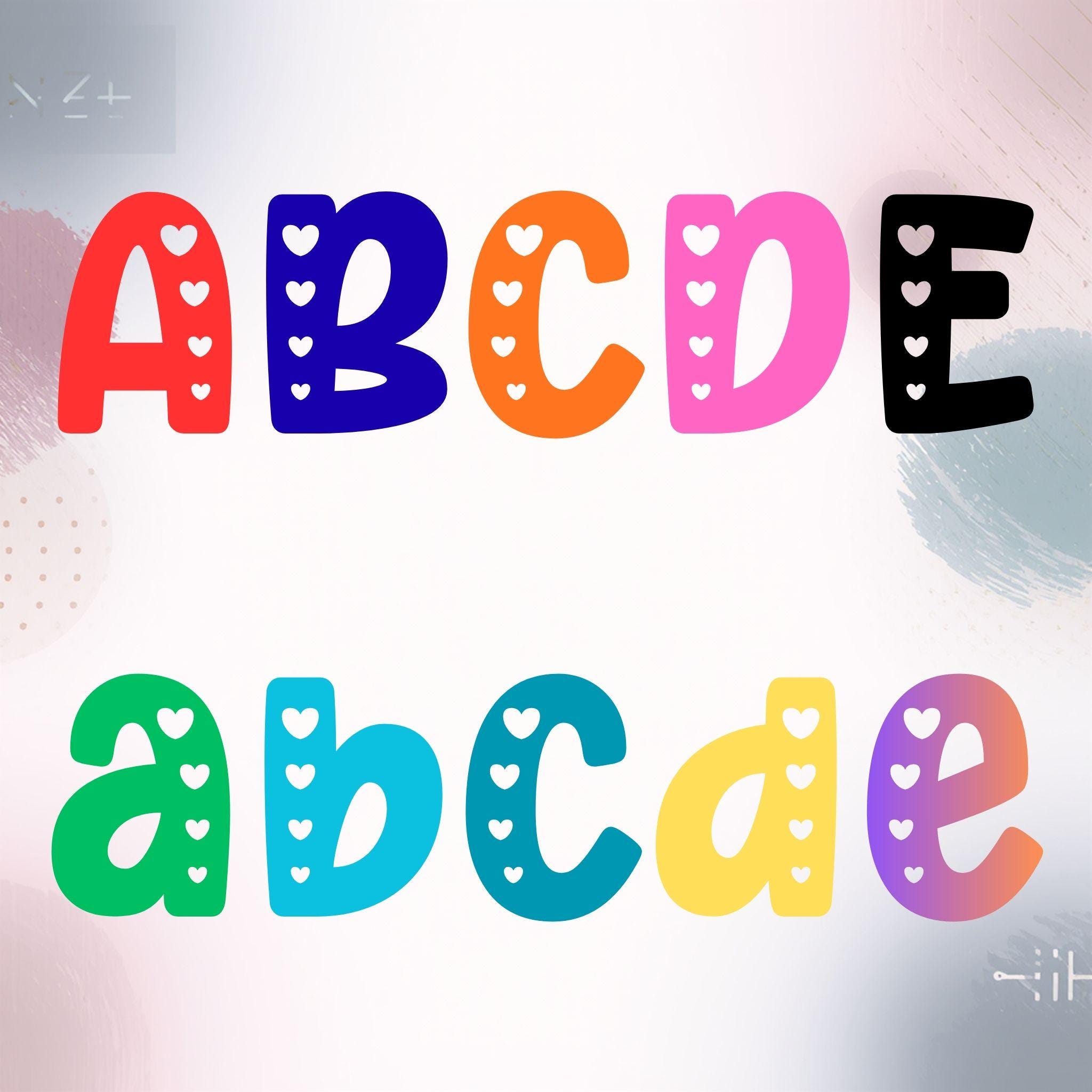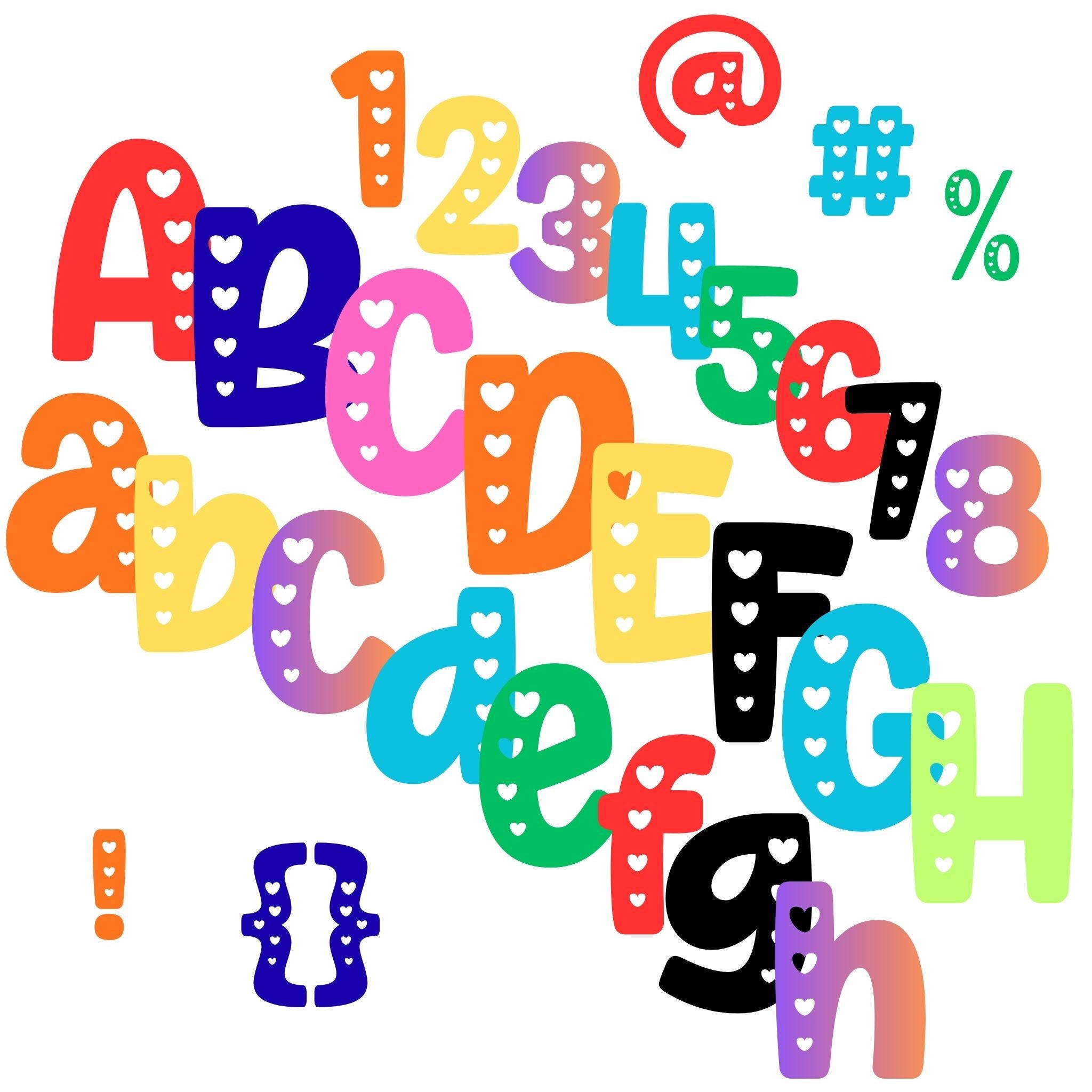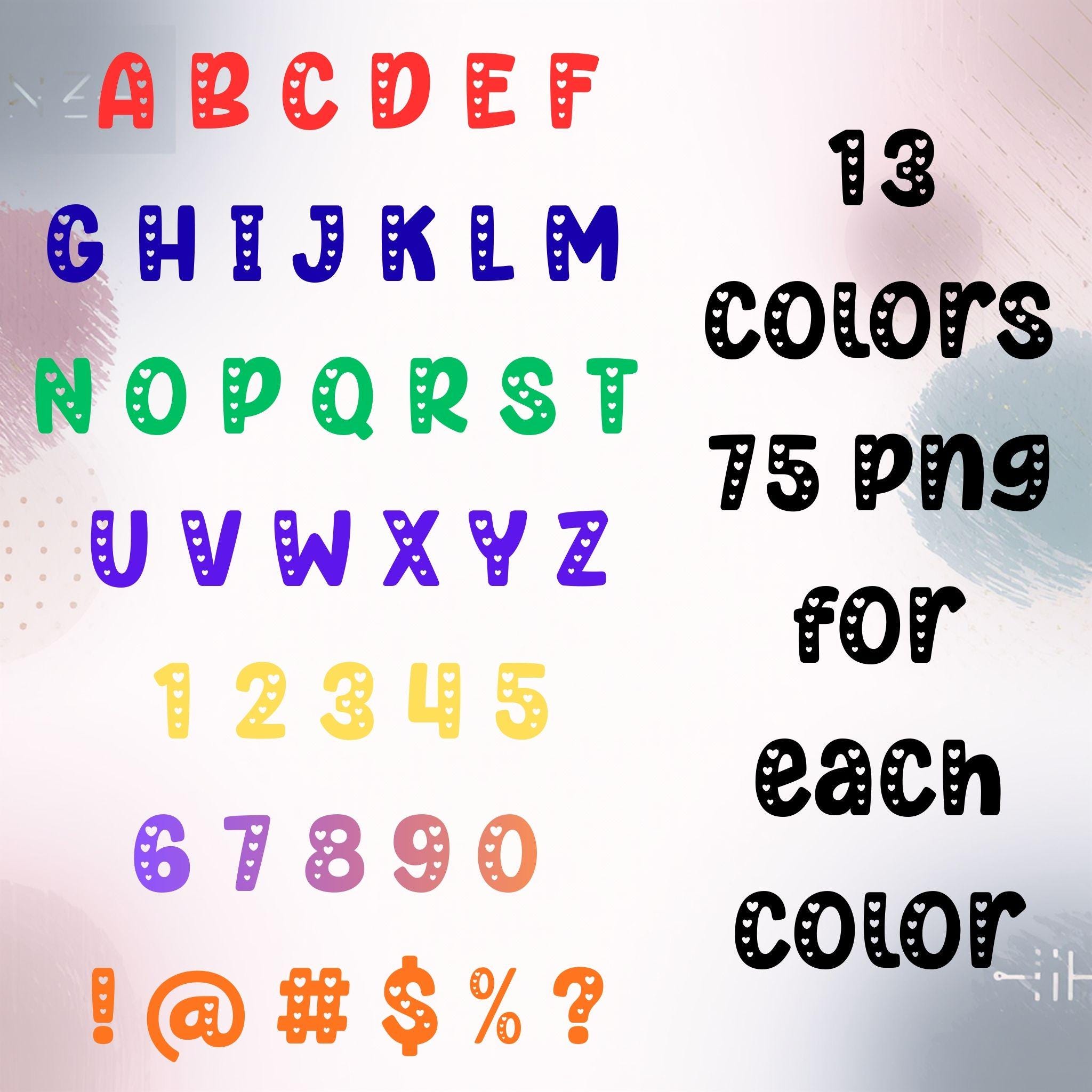
Add a sweet, playful touch to your designs with this Heart Doodle Alphabet PNG Font Bundle
Each letter is hand-drawn in a bold, rounded style and decorated with cute heart cut-out details, making it perfect for Valentine projects, kids designs, sublimation, stickers, planners, and fun branding.
Alphabet & Characters
Capital letters A–Z
Lowercase letters a–z
Numbers 0–9
Special characters included:
! @ # $ % & ( ) { } [ ] ?
Color Variations
13 different bright heart-themed colors
Clean, bold colors
Cute heart-style details
Perfect for layering & creative designs
Style
Hand-drawn doodle alphabet
Heart-decorated letters
Bright, playful color palette
Cute & modern font style